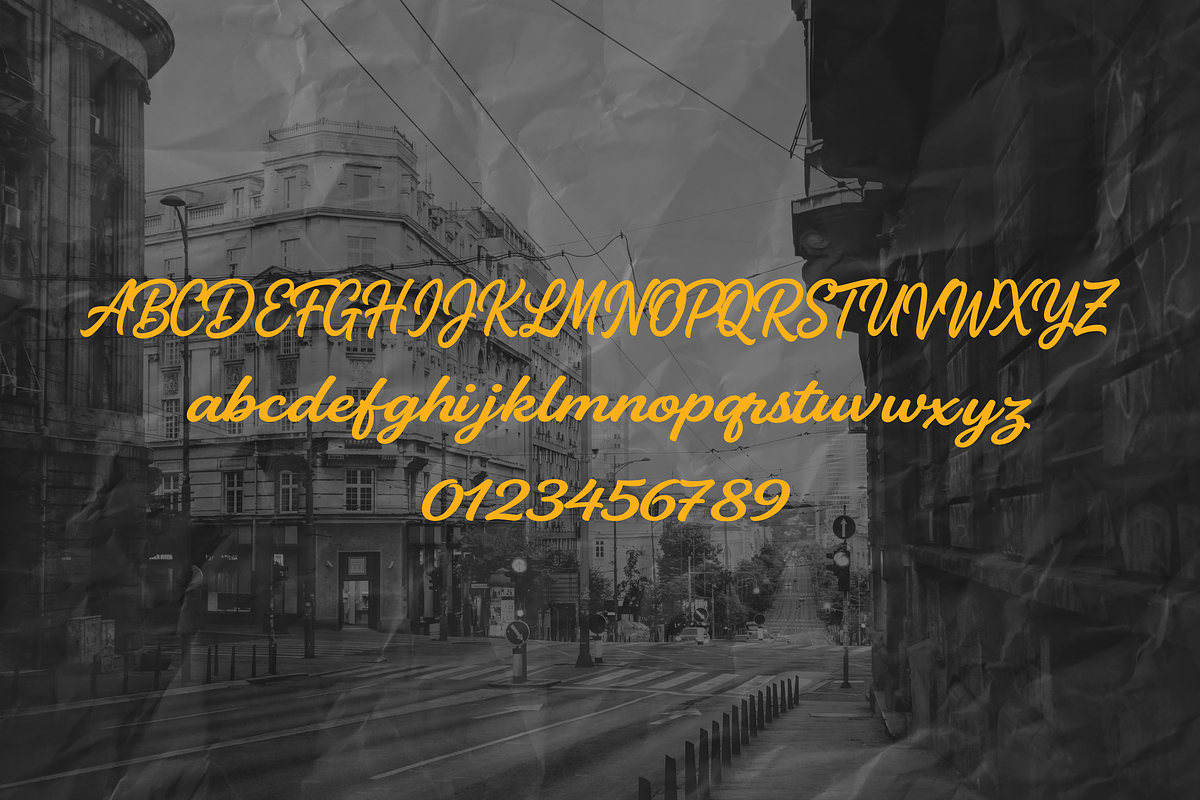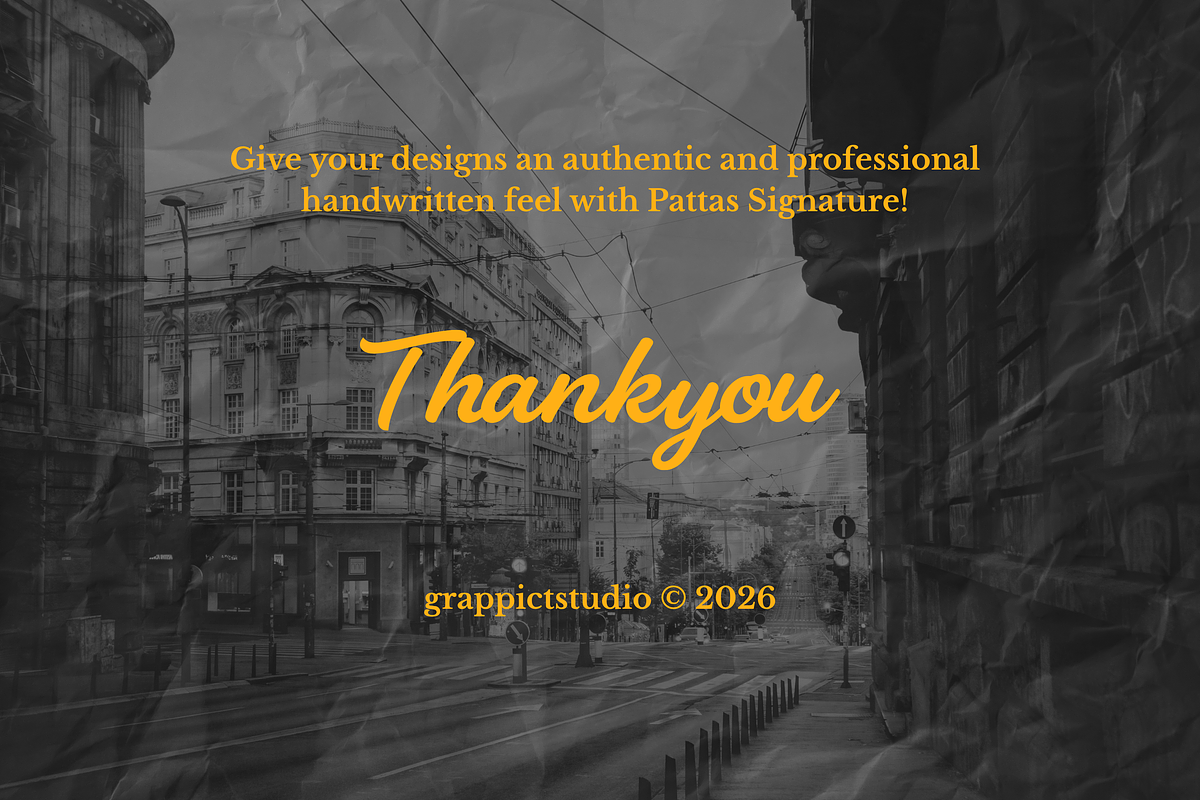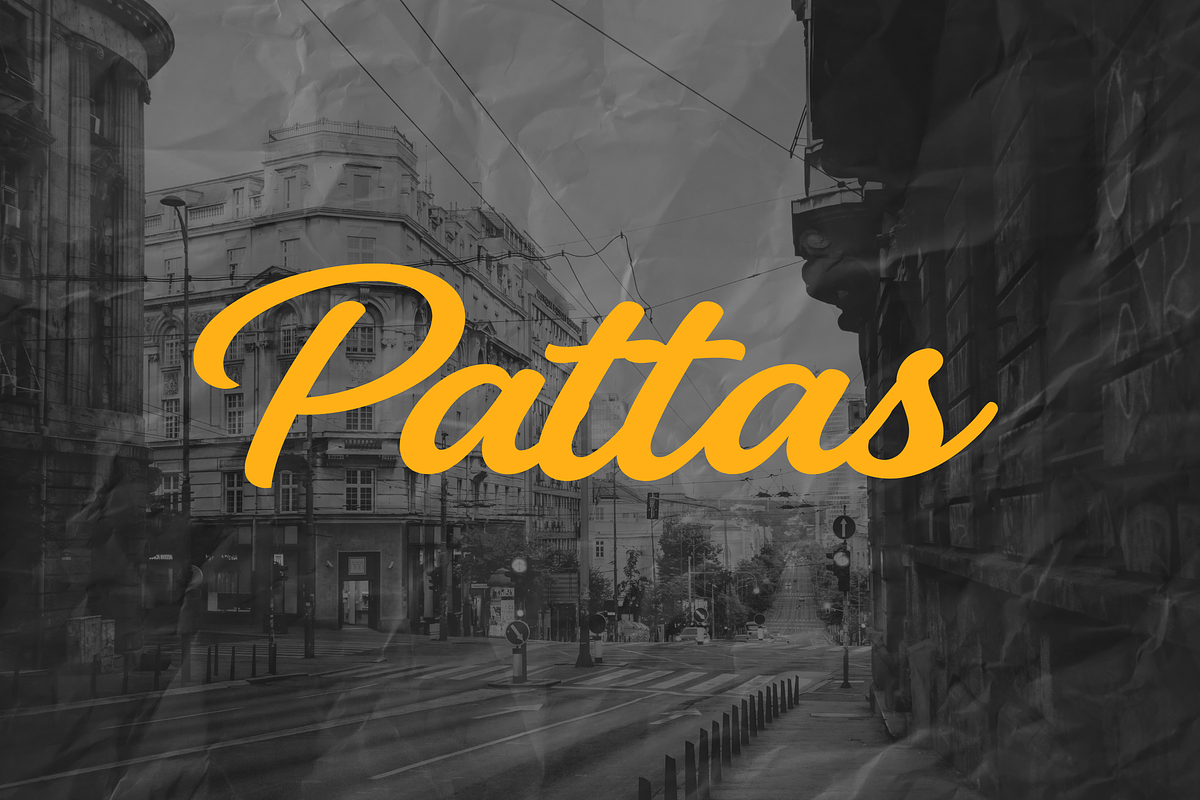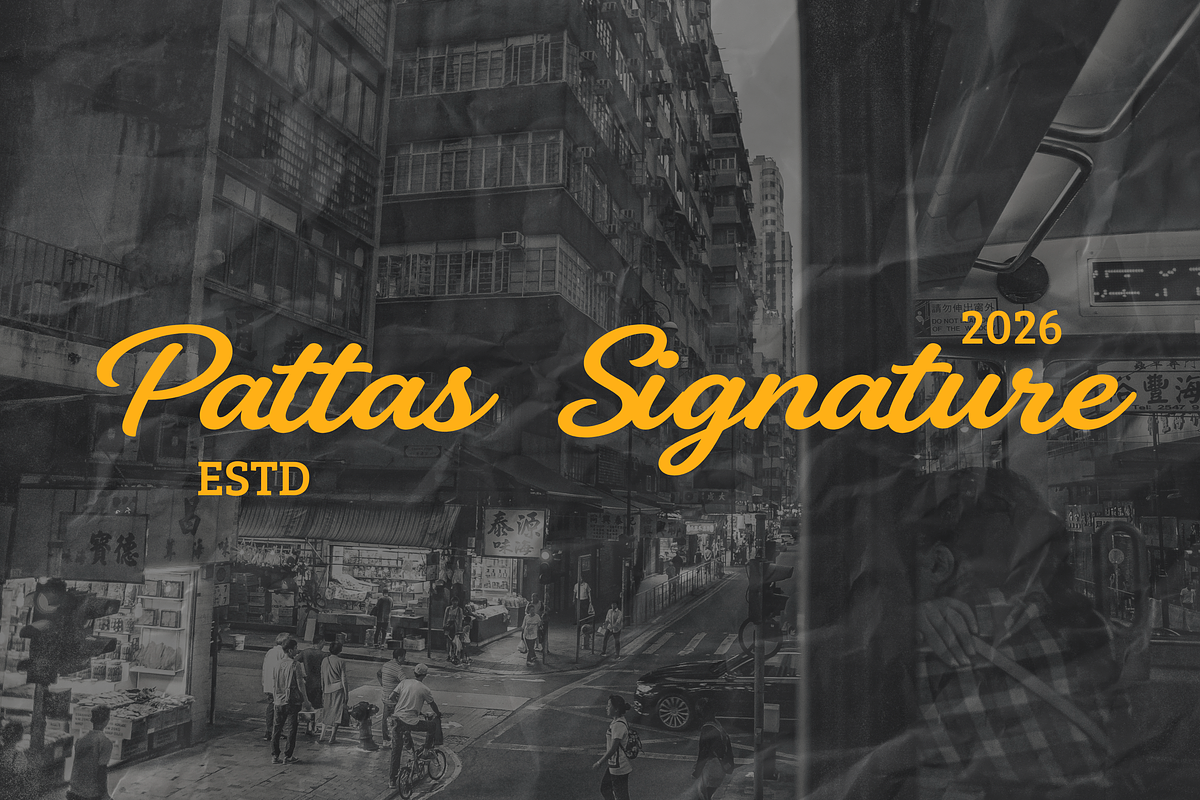
Pattas Signature - Elegant Script
Introducing Pattas Signature, a stylish and elegant signature script font. This font delivers a natural handwriting flow, perfect for adding a personal and sophisticated touch to your creative projects.
Ideal for:
Photography Watermarks & Signatures
Logo Design & Branding
Wedding Invitations & Cards
Social Media Content
Typography & Quotes
Give your designs an authentic and professional handwritten feel with Pattas Signature!